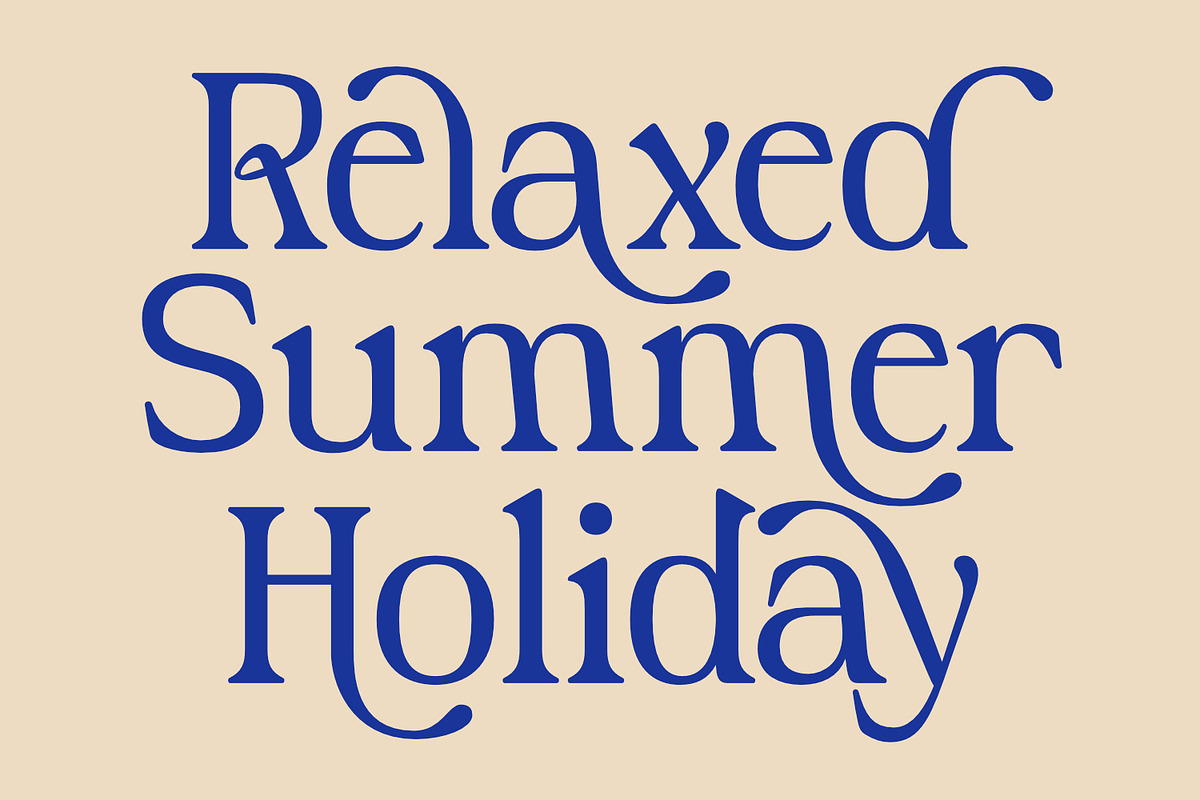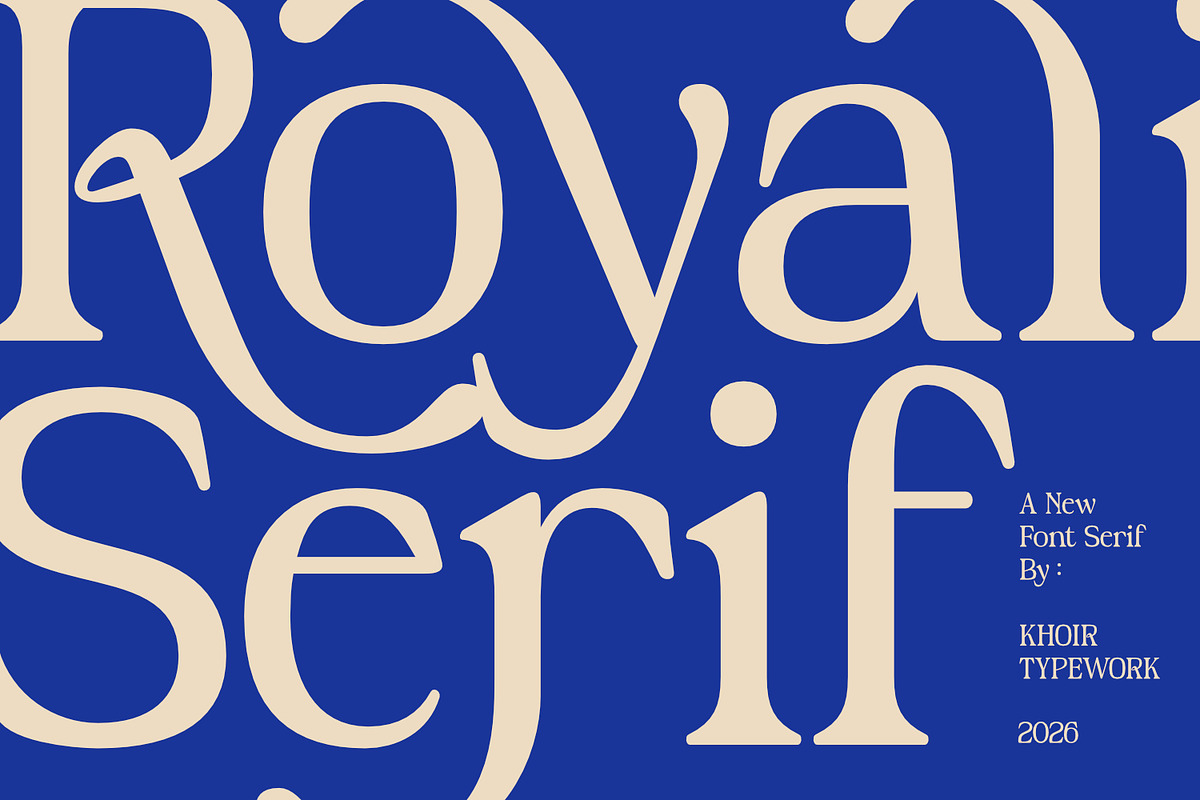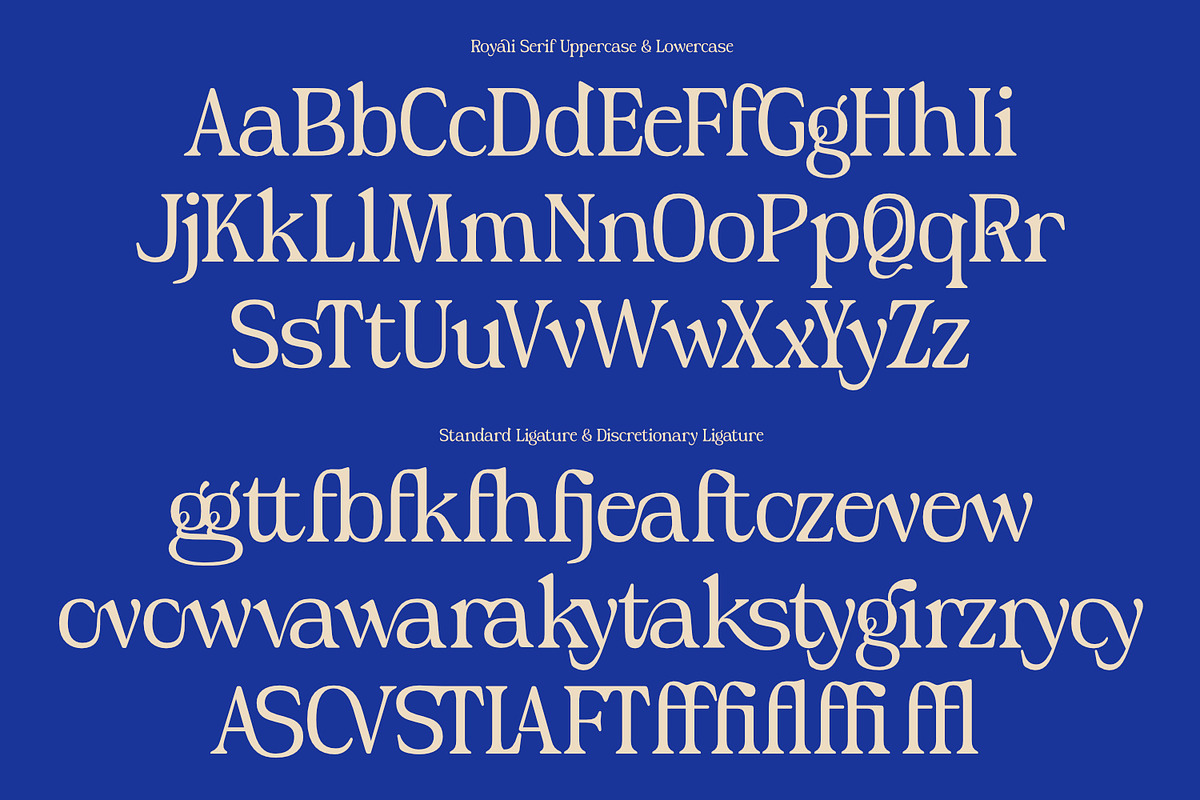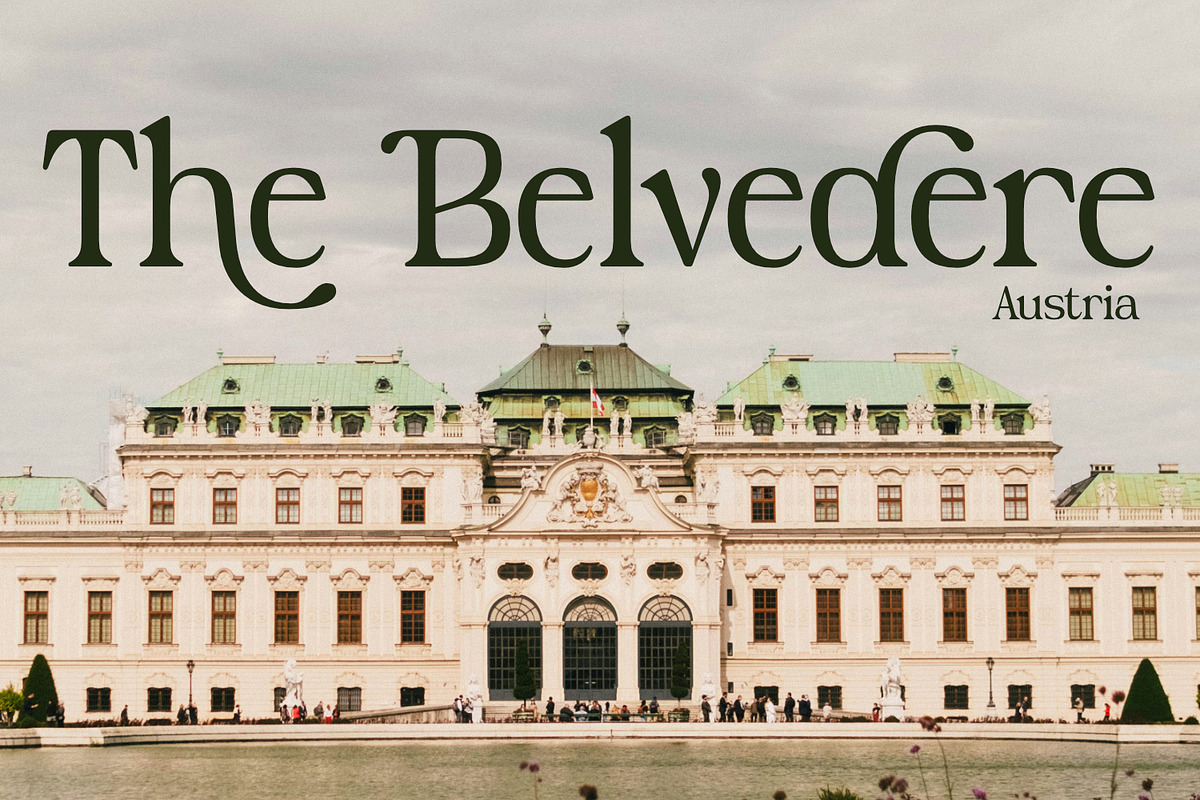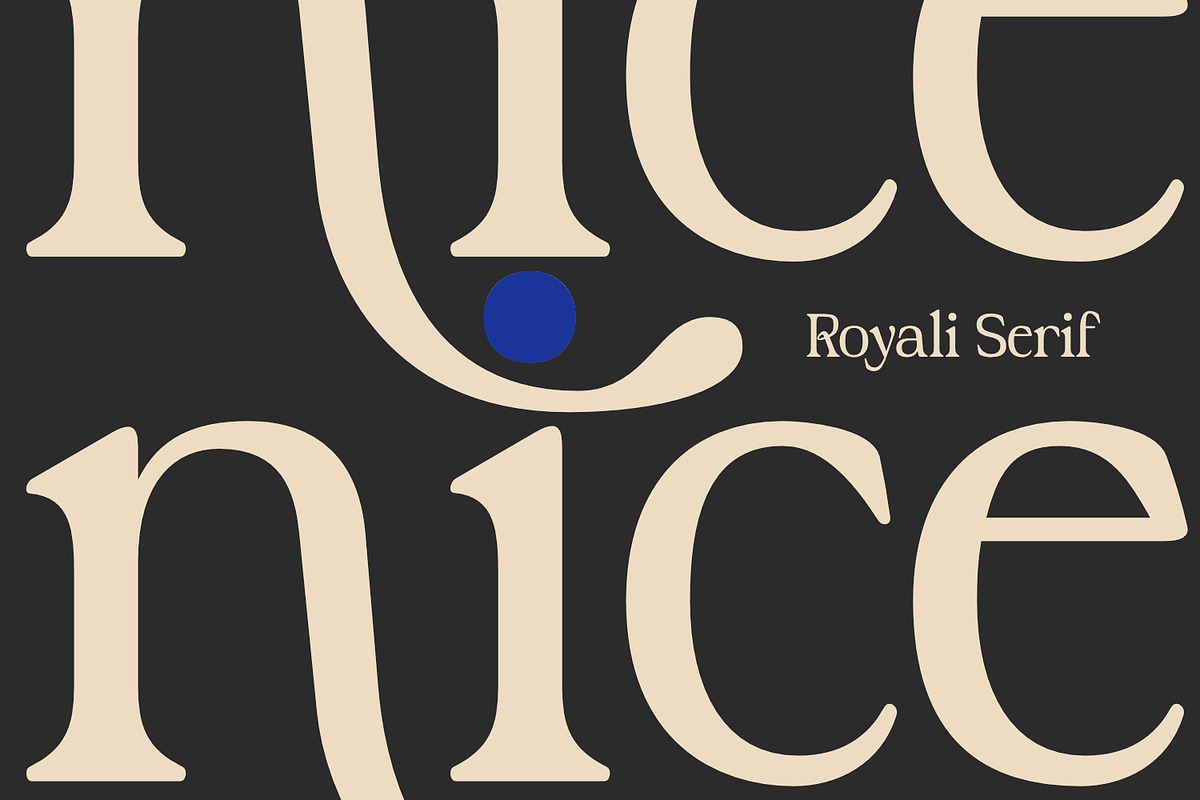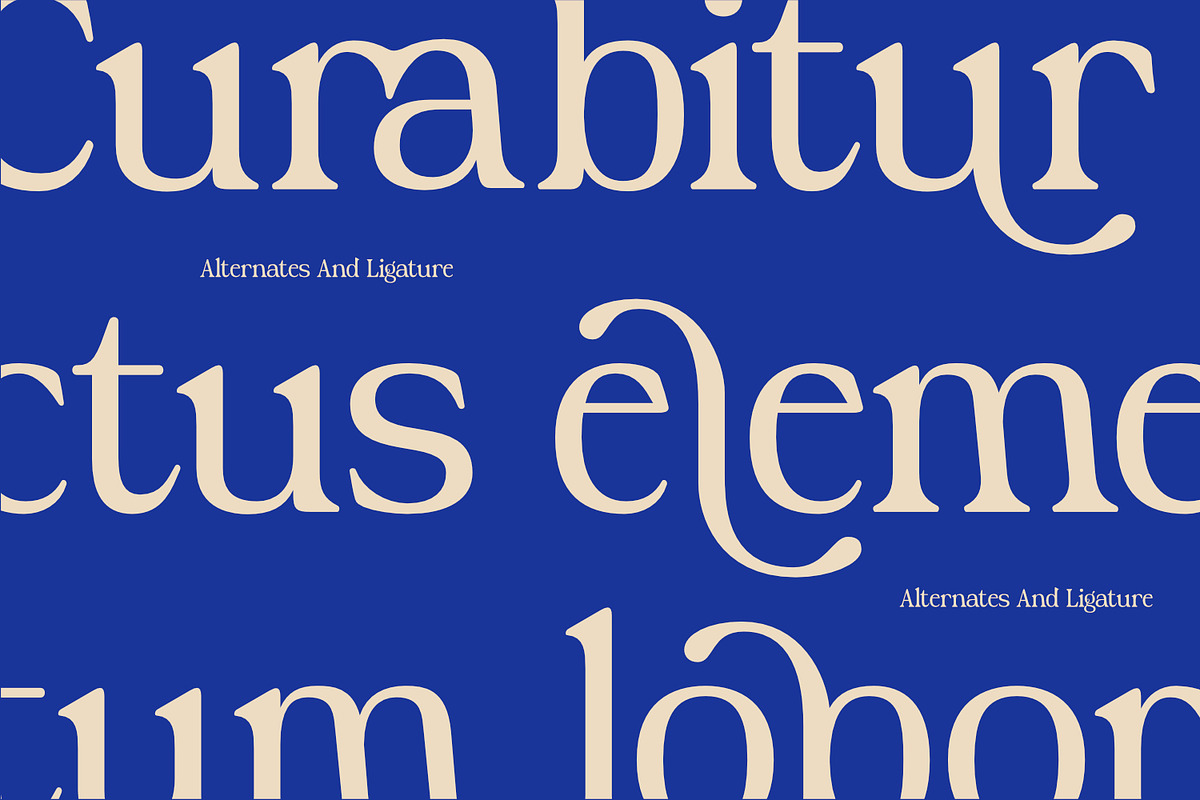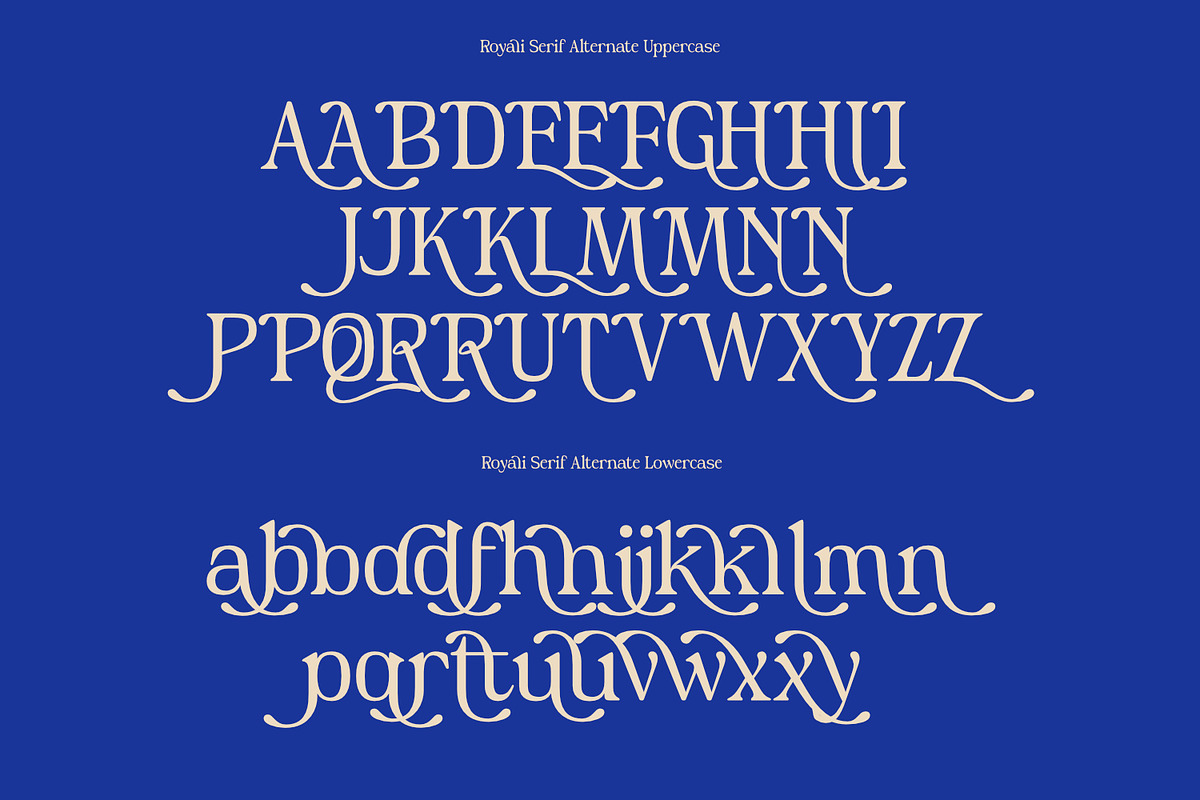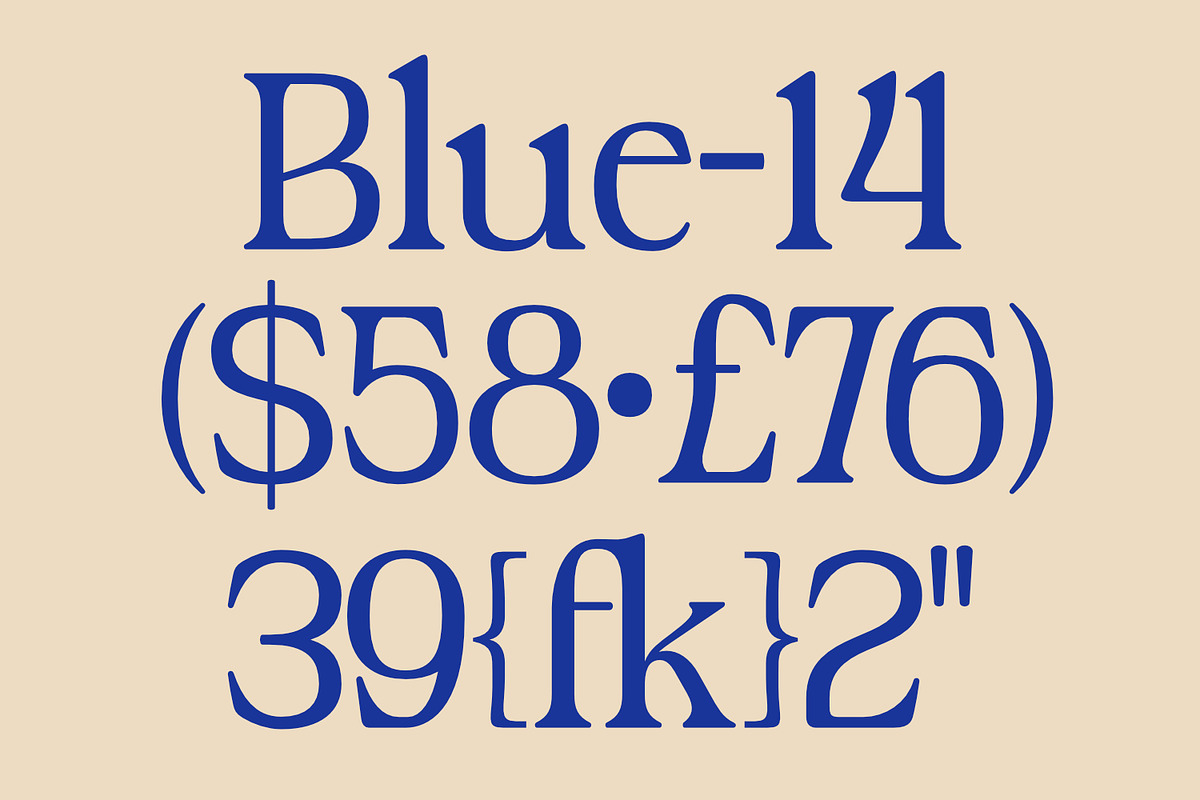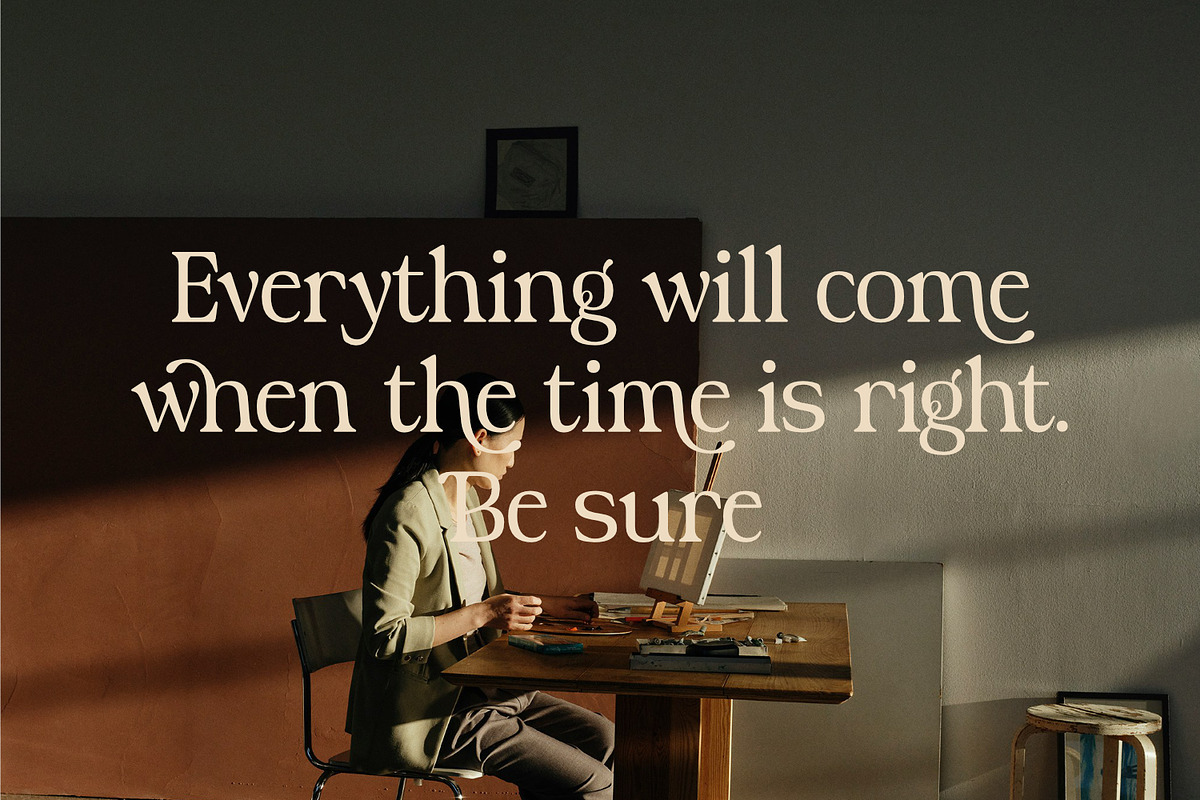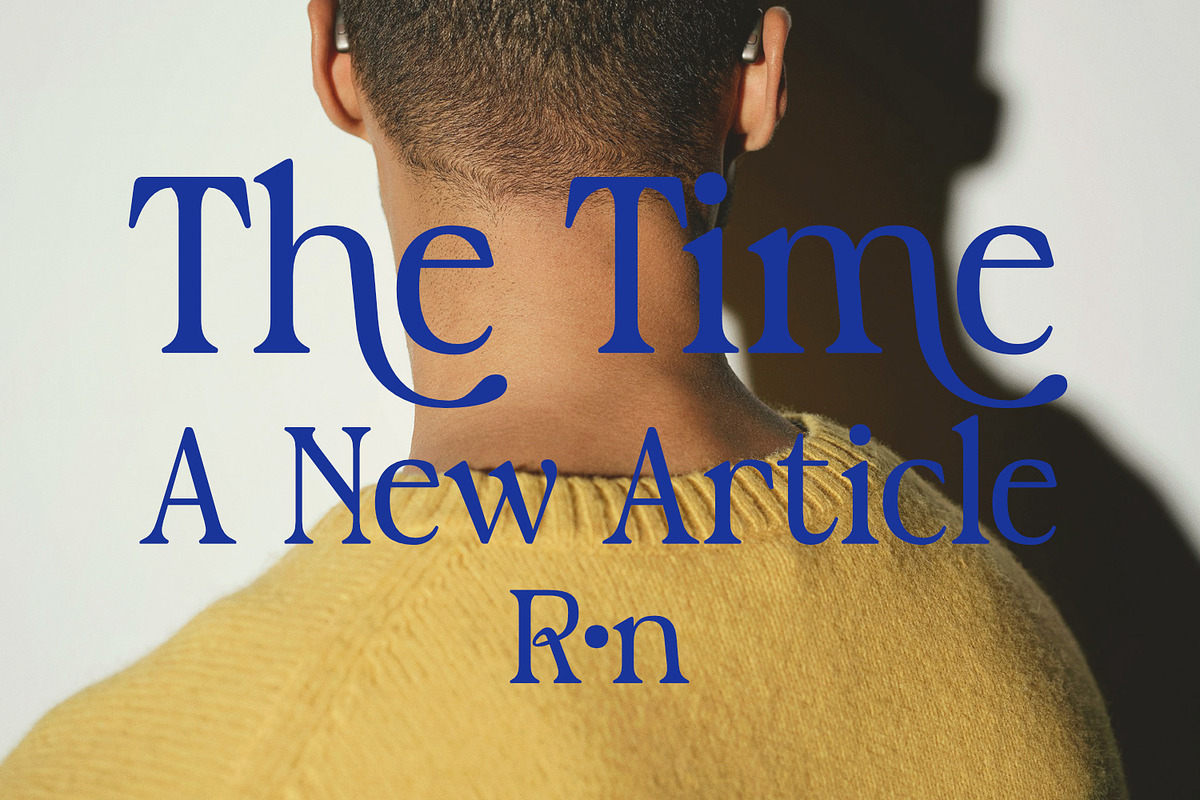
Royali Serif
Retro style. Royali serif is beautifully designed, paying attention to the angles of the letters and the intersections between the lines, creating an elegant and charismatic form.
With its harmonious alternating letterforms and ligatures, this typeface is perfect for titles, posters, business cards, vintage designs, wedding invitations, or anything with an elegant theme.
- Ligauture
- 75+ Language